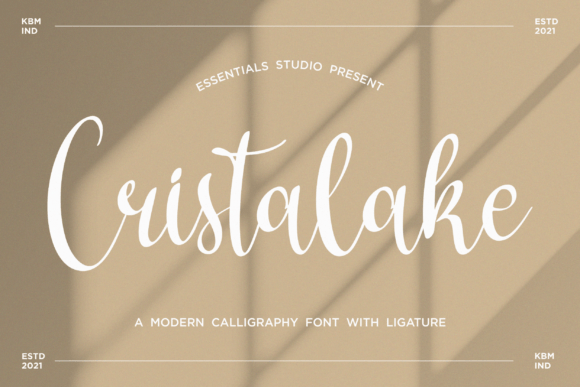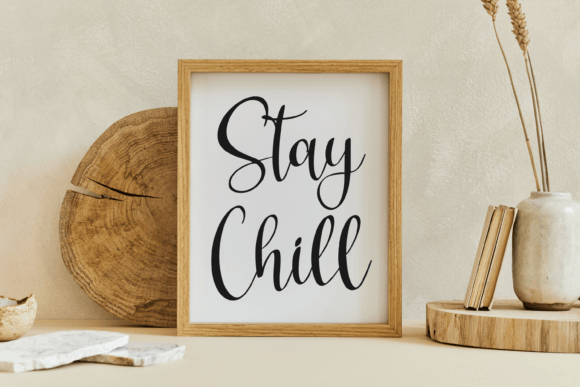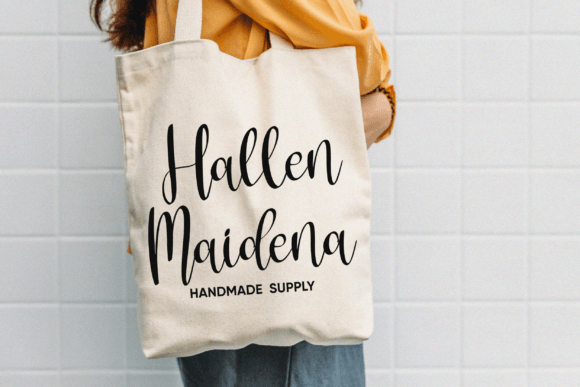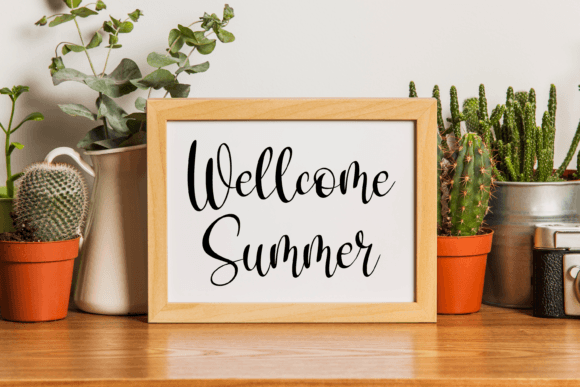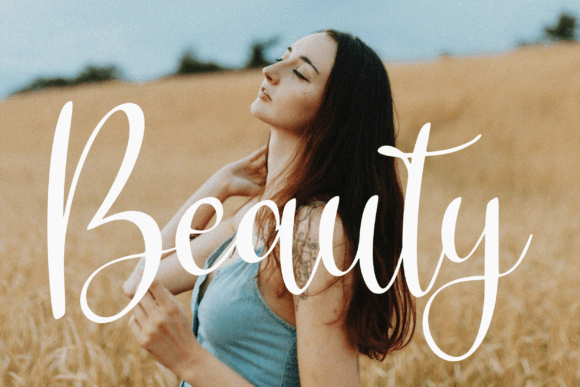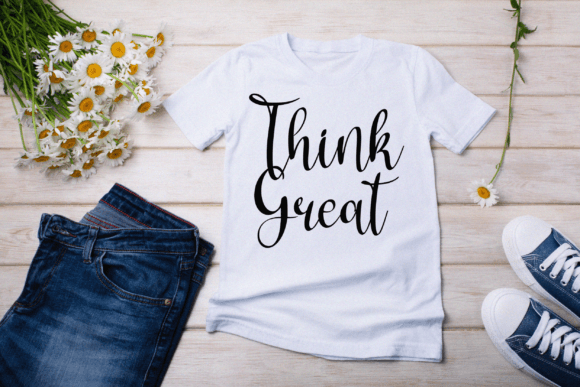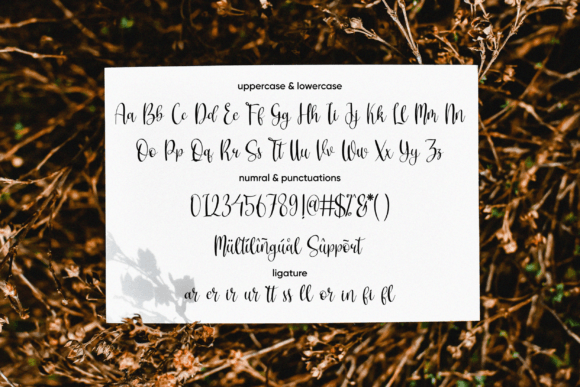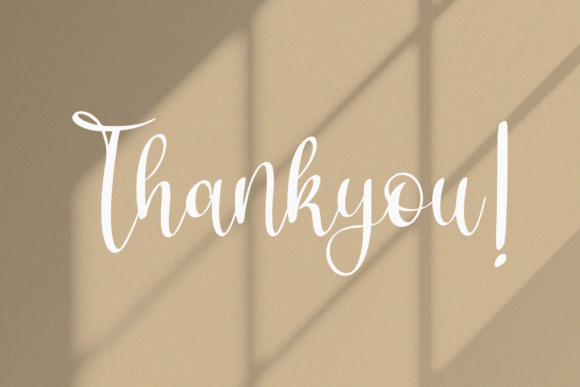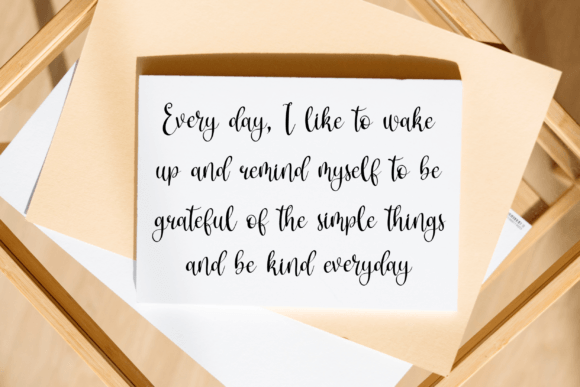
Cristalake Font
About Cristalake Font
“Cristalake” is a neat and beautiful handwritten font characterized by an elegant touch, making it an ideal choice for your favorite design projects. This font features an incredibly distinct and timeless style that can be used to create visually striking and captivating designs.
One of the standout features of “Cristalake” is its ability to convey a sense of elegance and sophistication. The flowing script style of the font adds a personal and authentic feel to your text, making it perfect for projects that aim to evoke a sense of refinement and beauty.
The font’s timeless style ensures its versatility in various design contexts. “Cristalake” can be applied to branding, invitations, stationery, product packaging, and a wide range of creative projects where an elegant and distinct aesthetic is desired.
Visualize using “Cristalake” for your brand identity and how it communicates a sense of timelessness and elegance to your target audience. Picture incorporating this font into your invitations, setting the tone for a truly beautiful and memorable event. When you choose “Cristalake” for your projects, you’re selecting a font that elevates them, making them stand out with a level of grace and charm.
In conclusion, “Cristalake” is more than just a font; it’s a design asset that brings enduring elegance to your creative projects. Its distinct and timeless style makes it a versatile choice for a wide range of applications. Fall in love with “Cristalake” and let it be the font that helps you create spectacular designs that leave a lasting and memorable impression.